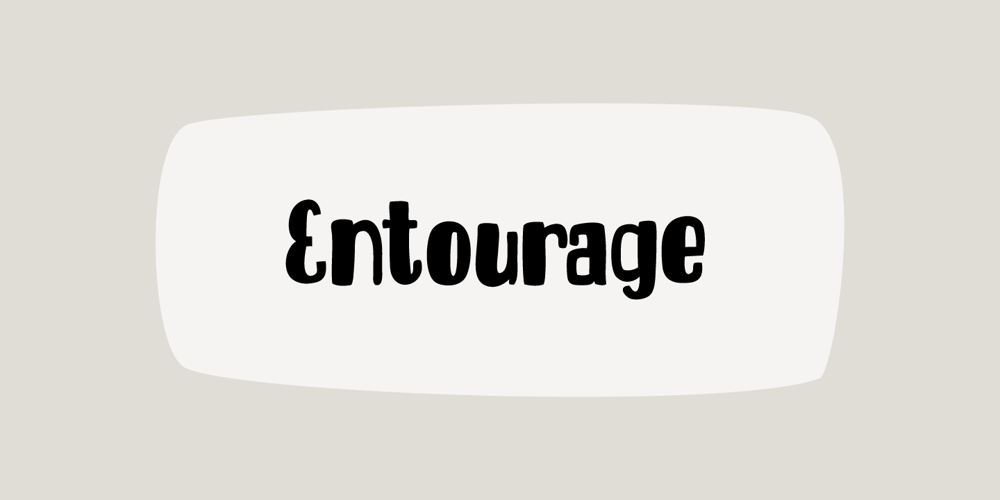
Entourage
Entourage font
Entourage Font Family was designed by David Kerkhoff and published by Hanoded. Entourage contains 3 styles and family package options. Entourage is a sweet little font – rounded, quirky and cute. Entourage will shine on product packaging, posters and websites. Comes with an ‘entourage’ of diacritics.